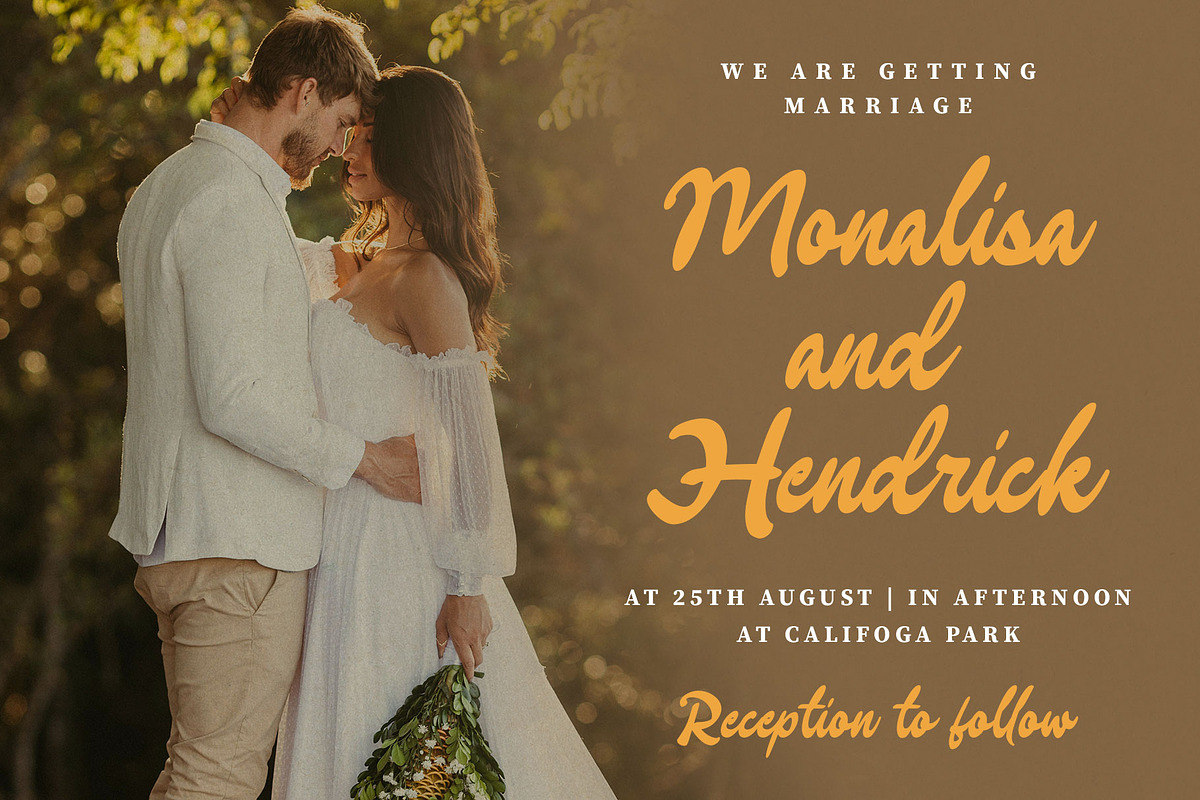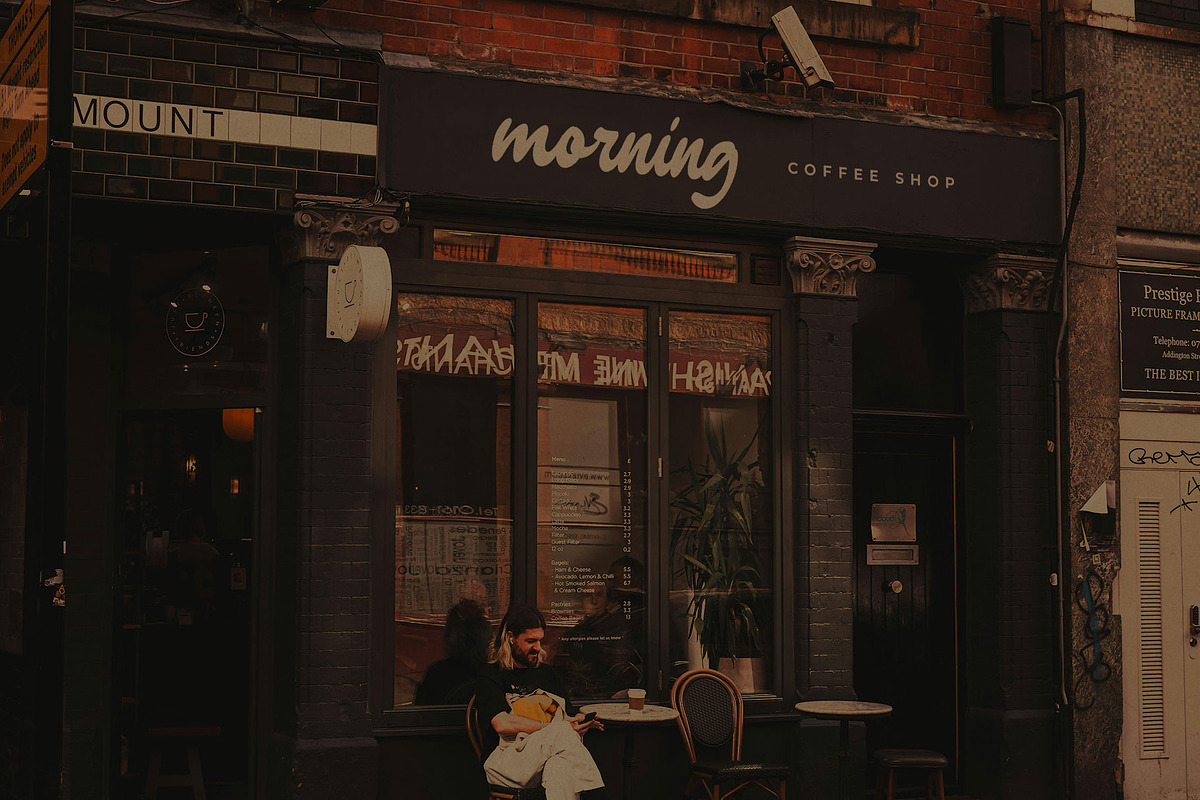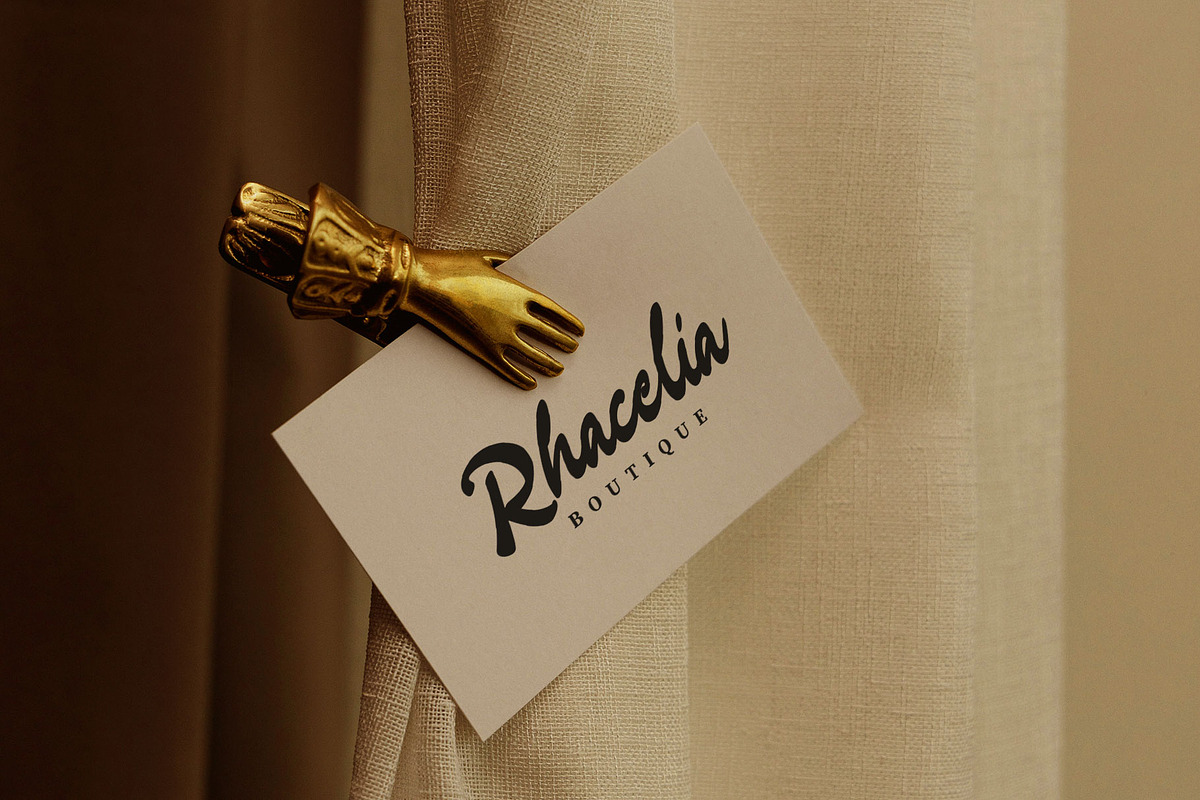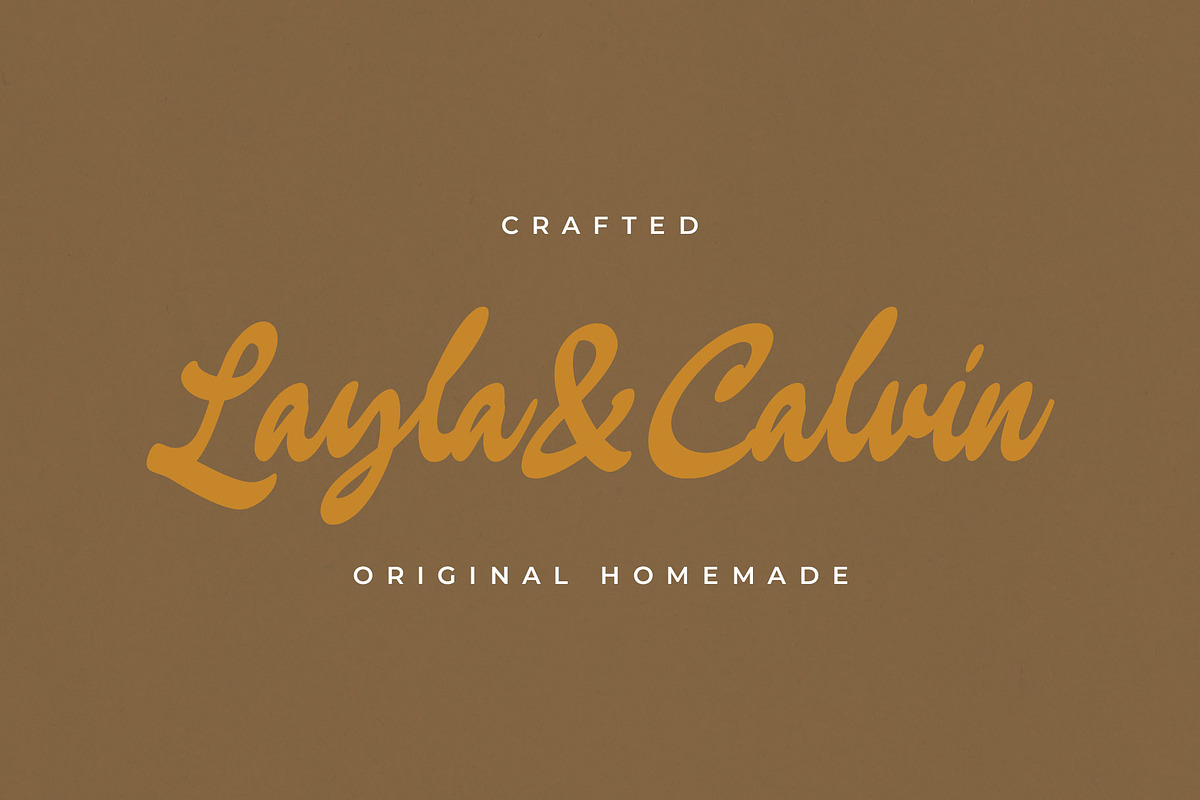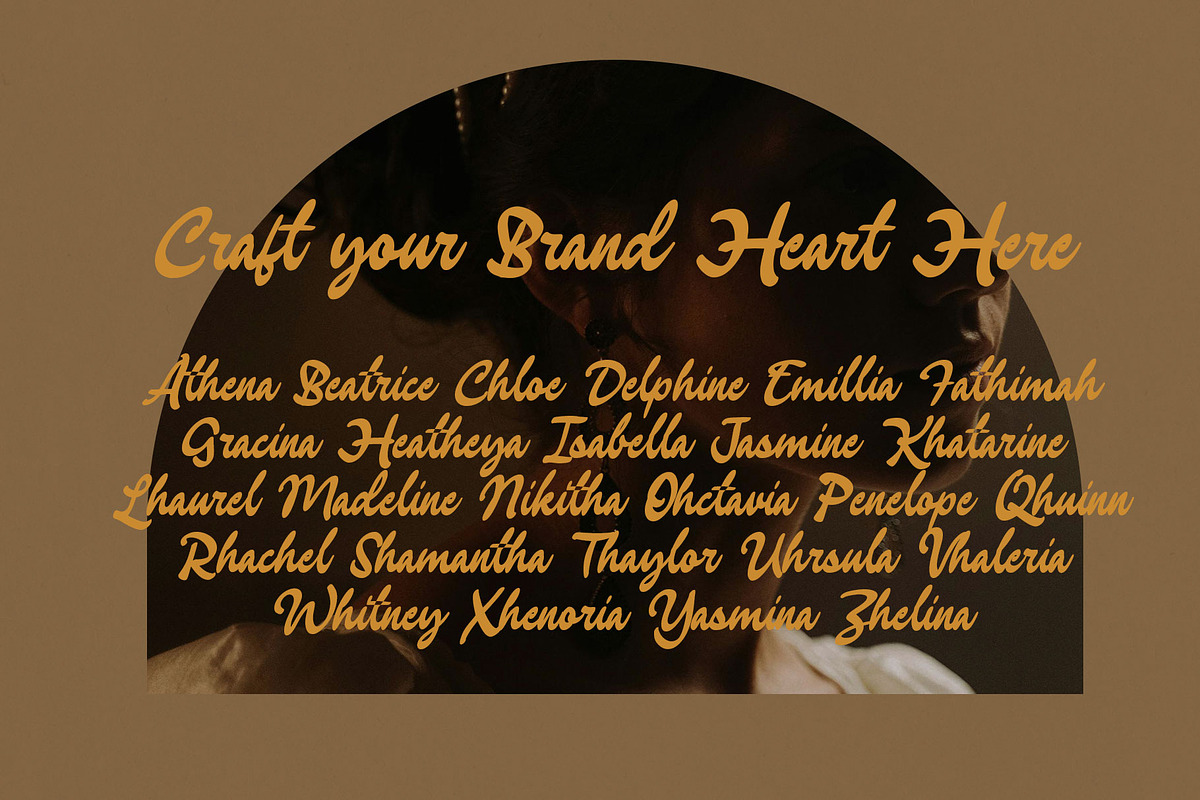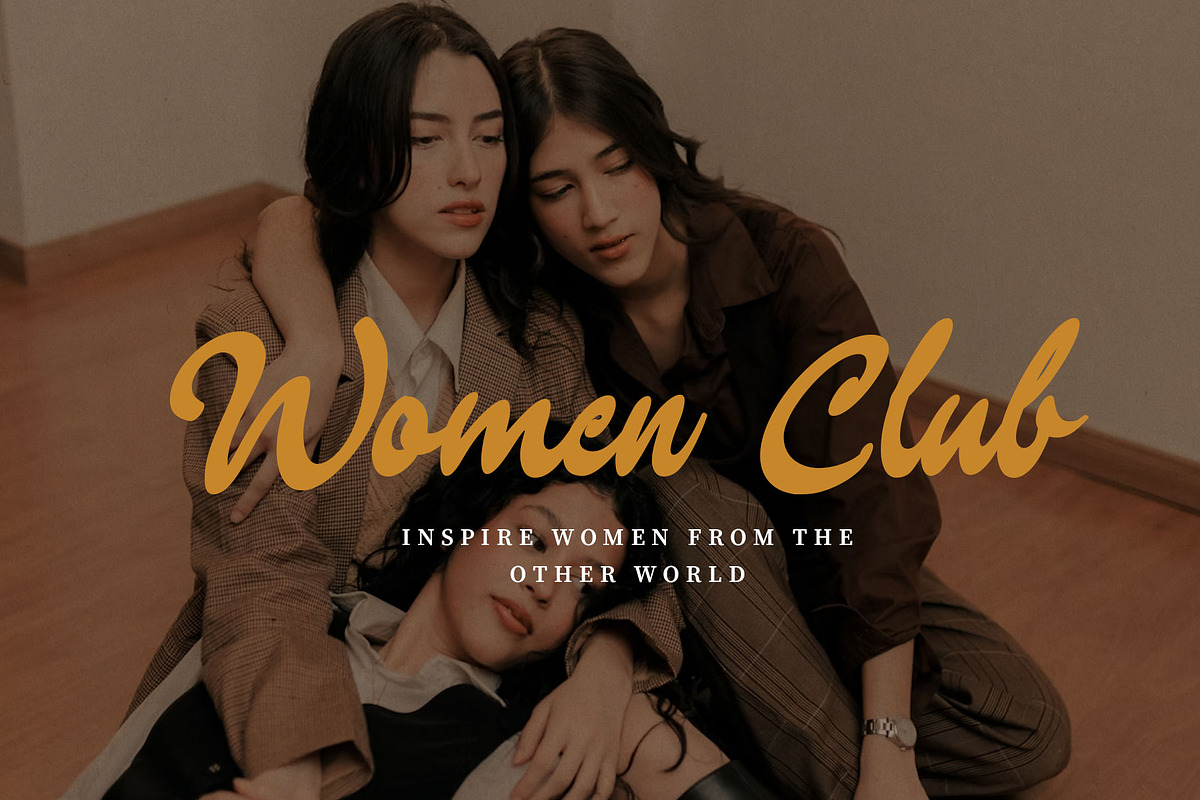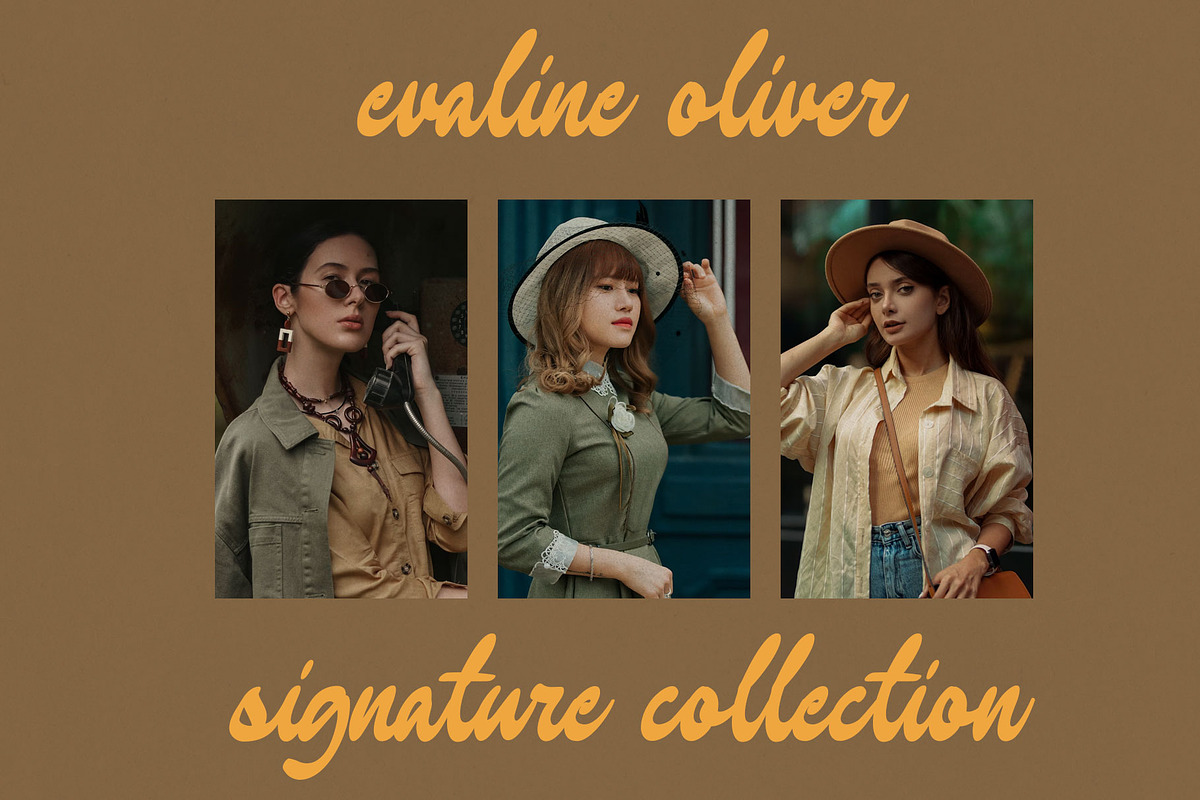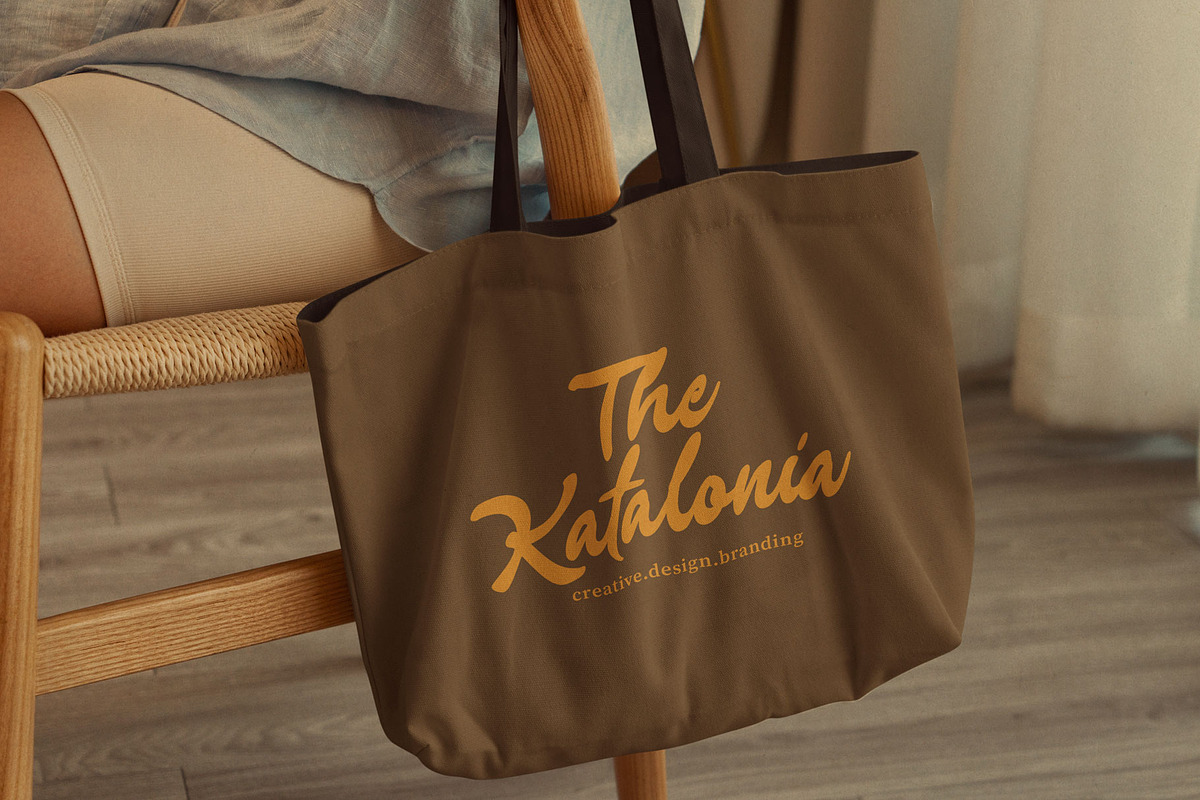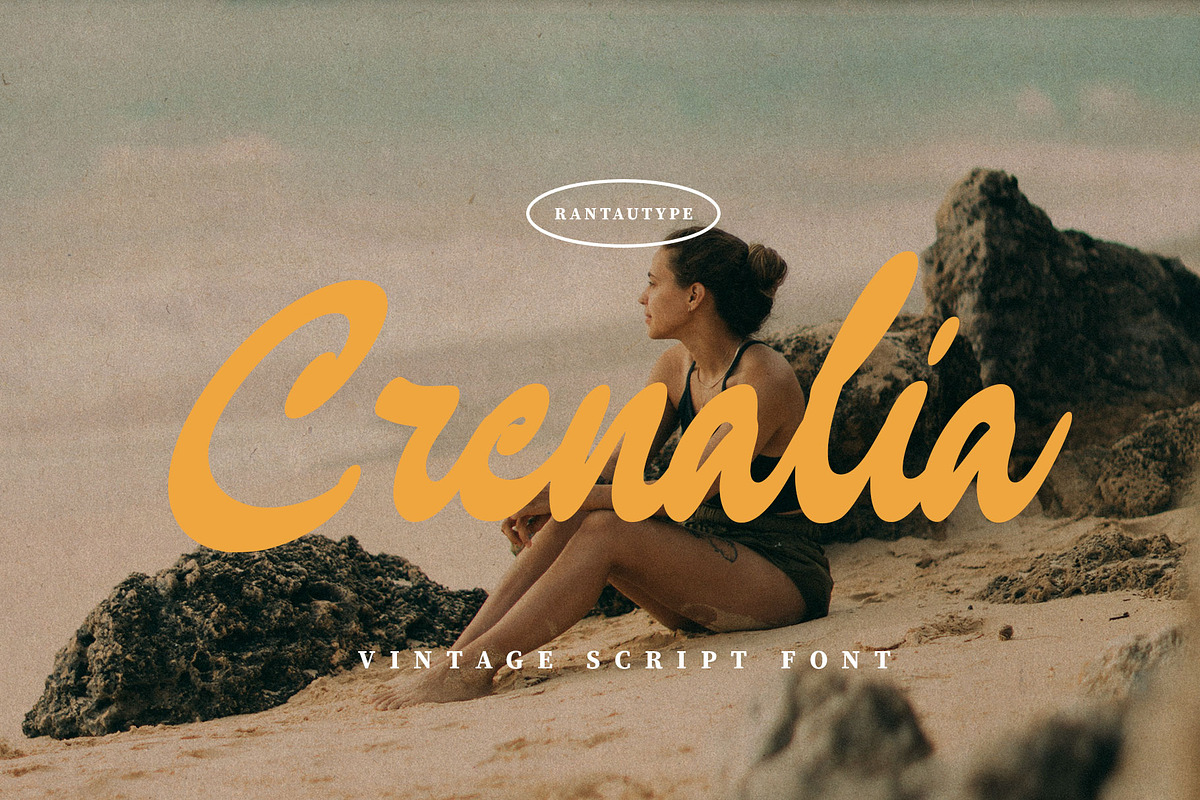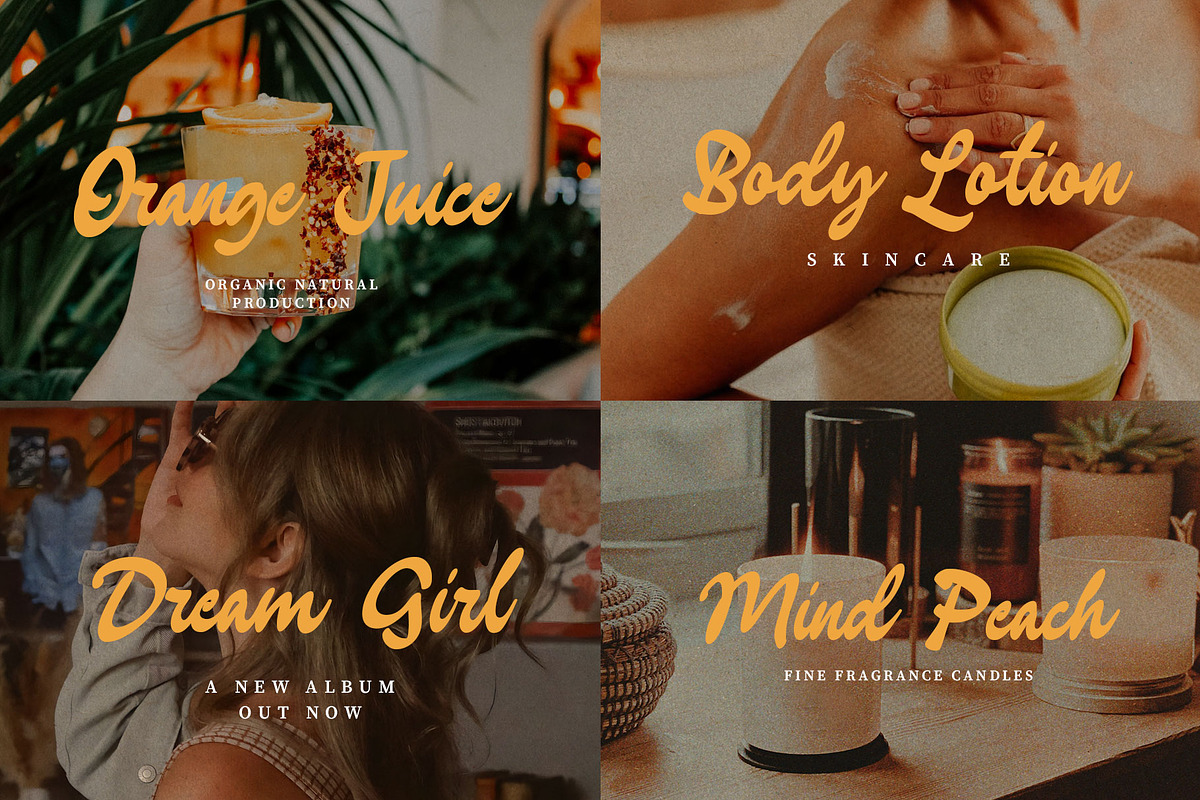
Crenalia Vintage Script Font
Raciya is modern serif font made by rantautype studio. Raciya is a perfectly choice for any creative endeavor, chic, lifestyle design such as logotype, advertisements, watermark on photography, stationery, branding project, display and magazine, invitation, corporate brand, product design, label, business project and many other project with retro touch.
- Alternate and ligature